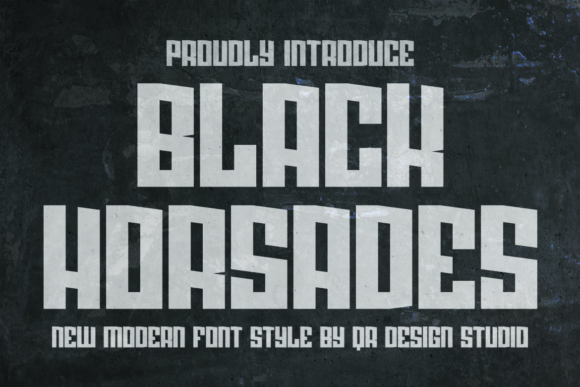
The Power of Black Horsades Font: A Designer’s Best Friend
I still remember the design project that made me fall in love with the Black Horsades font. I was working on a branding campaign for a new outdoor gear company, and I needed a font that could convey strength, adventure, and reliability. After hours of searching, I stumbled upon Black Horsades, and it was like a lightbulb went off – this was the one. Its bold, confident letters seemed to scream “explore” and “conquer,” making it the perfect fit for the project. In this article, I’ll share my experience with Black Horsades, its features, and how to make the most of it in your designs.
An Honest Review of Black Horsades
- ✨ Bold and attention-grabbing: Black Horsades is not for the faint of heart. Its bold letters demand attention and make a statement.
- ✅ Authentic and strong: This font exudes a sense of confidence and authority, making it perfect for headlines, logos, and branding materials.
- 💯 Versatile: Black Horsades works well in various design contexts, from digital to print, and can be used for both personal and commercial projects.
While Black Horsades is an excellent font, it’s not without its quirks. For instance:
- 🤔 Limited use in body text: Due to its bold nature, Black Horsades might not be the best choice for lengthy body text. It’s better suited for headlines and titles.
- ⚠️ Some letter combinations: A few letter combinations, like “fi” or “fl,” might not be as aesthetically pleasing as others. However, this is a minor issue that can be easily addressed with creative workarounds.
The Backstory of Black Horsades
Black Horsades was designed with one goal in mind: to create a font that exudes strength, confidence, and authority. Its creator, a seasoned typographer, drew inspiration from classic bold fonts and infused them with a modern twist. The result is a font that’s both timeless and contemporary, making it perfect for a wide range of design projects.
| Font Name | Black Horsades Font |
| Author | qrdesignstd |
| What makes Black Horsades unique? | Black Horsades stands out due to its bold, confident letters and authentic feel. It’s designed to make a statement and convey strength and authority. |
| Is Black Horsades suitable for body text? | While Black Horsades can be used for body text, it’s not the best choice due to its bold nature. It’s better suited for headlines, titles, and short paragraphs. |